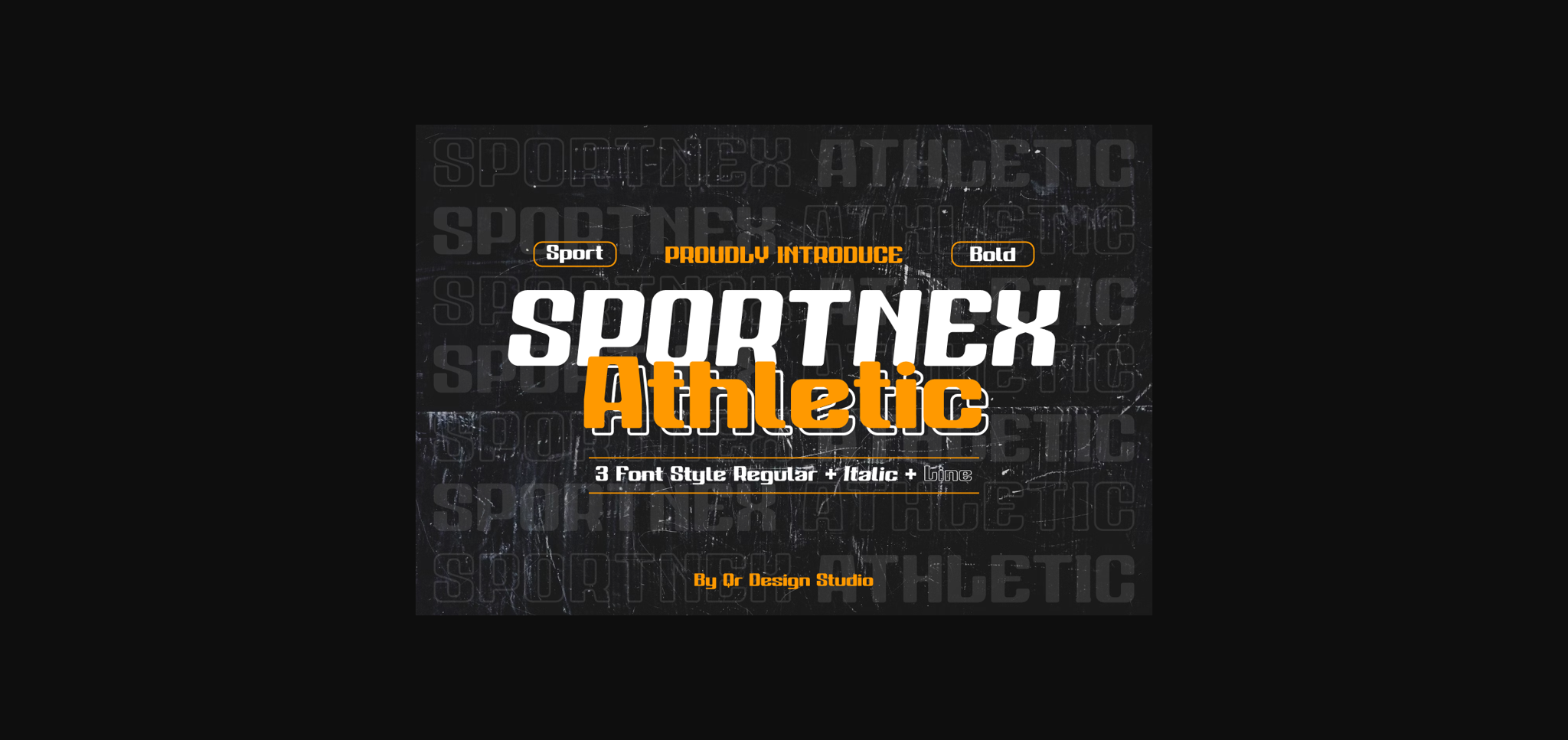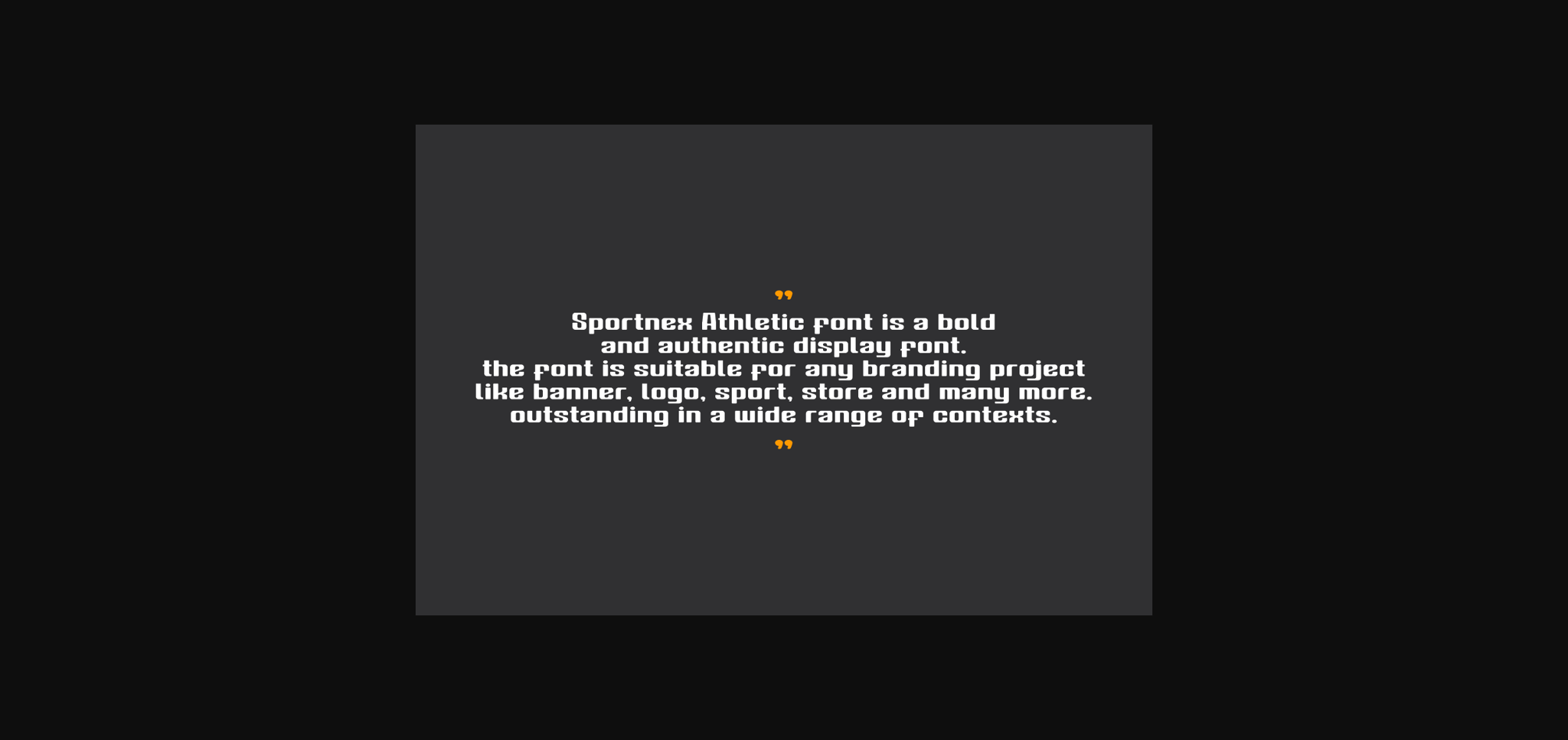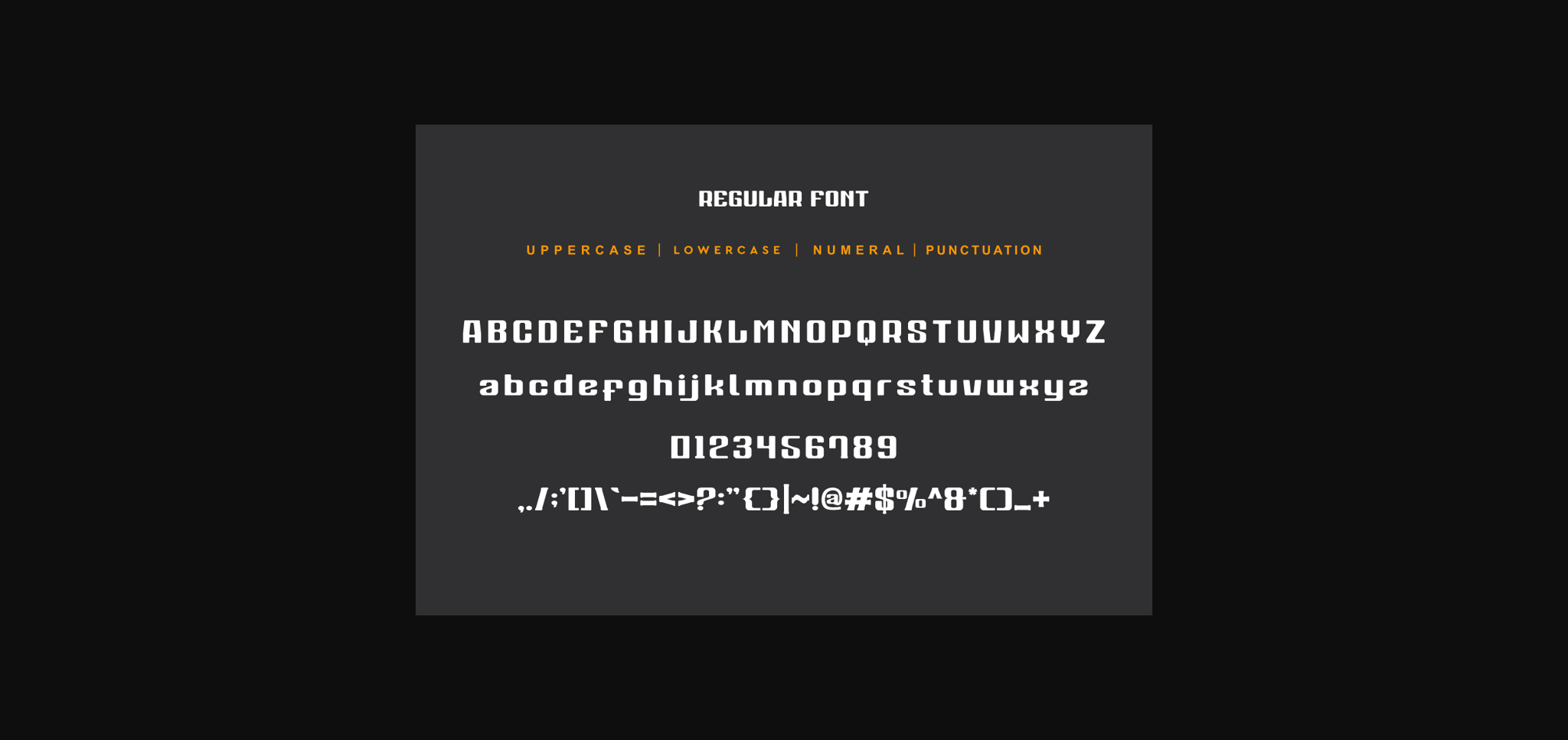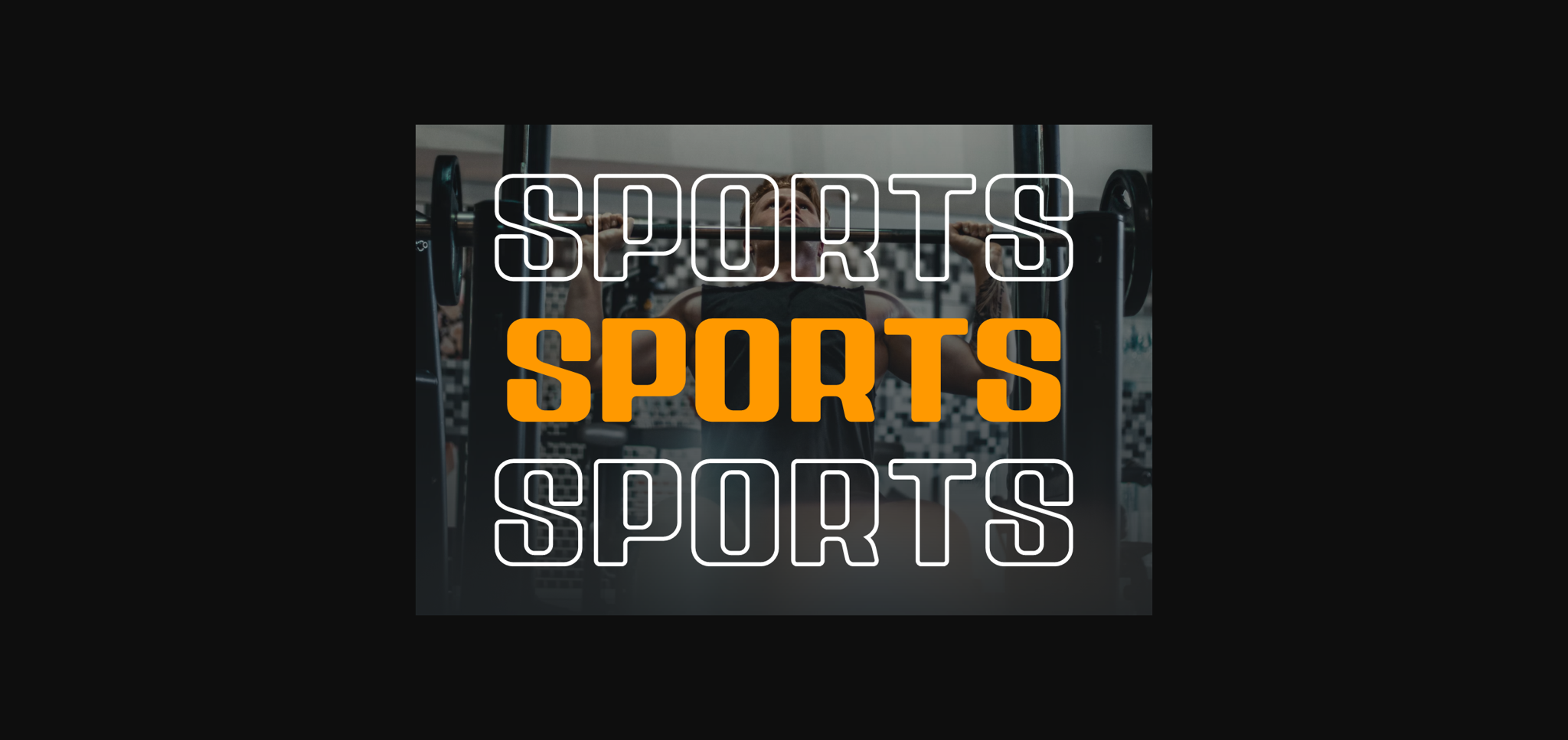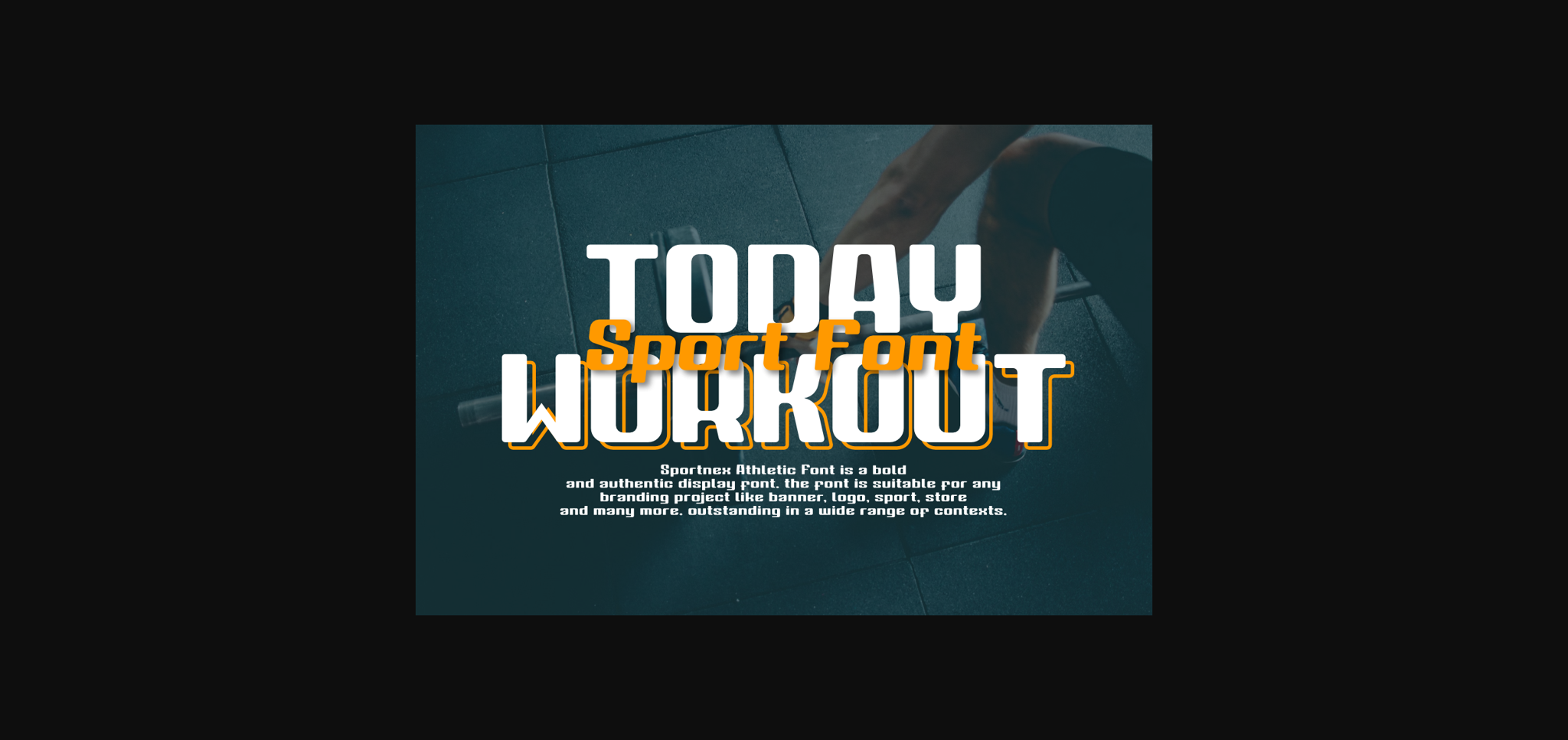
About Sportnex Athletic Font
Sportnex Athletic is a bold, all caps sans serif font featuring the perfect amount of trendiness. Whether you’re using it for crafting, digital designing, presentations or greeting cards making, it’s perfect!